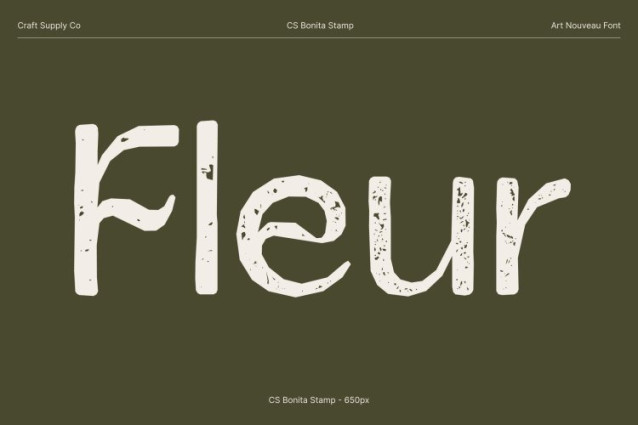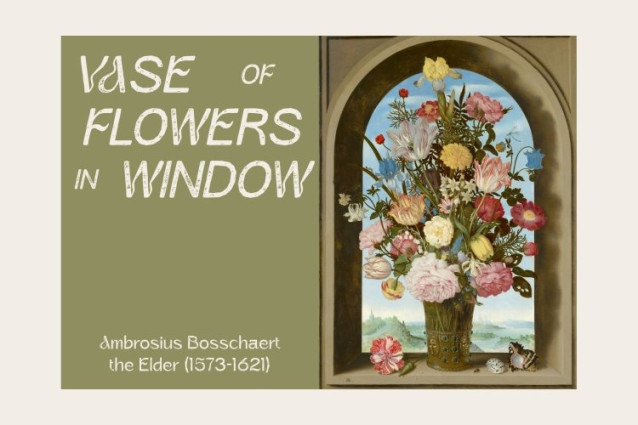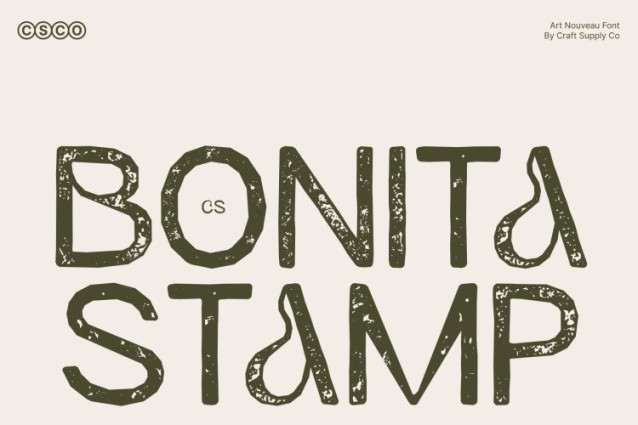
CS Bonita Stamp Font – This beautifully merges contemporary sans-serif structure with the graceful influence of Art Nouveau, now enhanced by a refined stamped texture. Its smooth curves and delicate decorative elements remain elegant and balanced, while gentle ink variations and softly distressed edges introduce a handcrafted, print-inspired warmth.
Graceful Luxury with Textured Depth
The minimalist foundation of this font is elevated by subtle artistic flourishes, creating a harmonious blend of modern clarity and vintage charm. The stamped finish adds tactile depth without overpowering its sophistication, evoking the feeling of classic posters and heritage packaging with a contemporary twist.
Ideal for High-End and Refined Designs
This is perfect for luxury branding, formal invitations, boutique packaging, and editorial layouts that demand elegance and distinction. Its textured Art Nouveau influence brings character and authenticity, ensuring each composition feels polished yet expressive.
Versatile Sophistication with Vintage Appeal
By combining clean modern lines, artistic curves, and a subtle stamped finish, delivers a timeless typographic voice. It offers designers a refined tool for creating visuals that feel luxurious, artistic, and memorable where contemporary design meets classic elegance with graceful character.